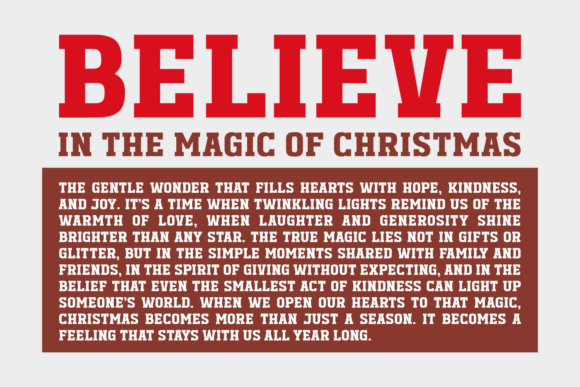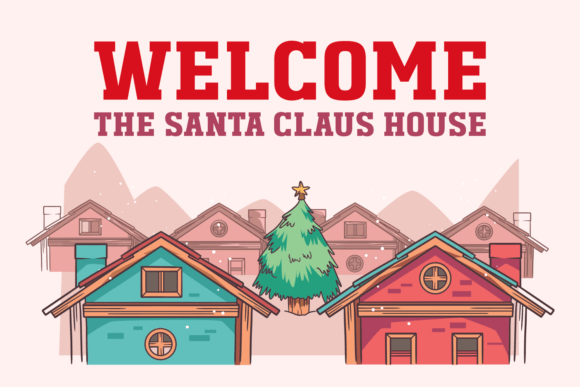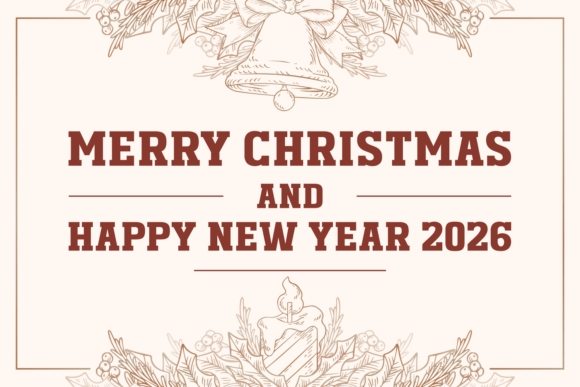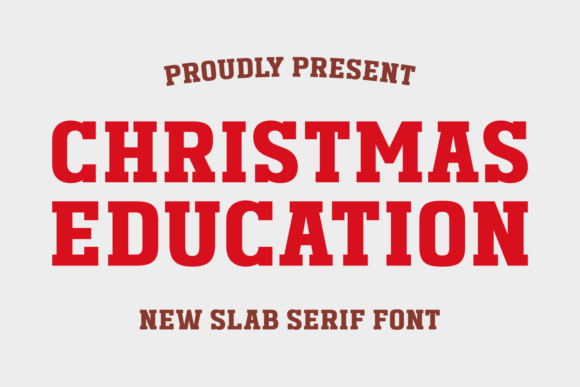
Introducing Christmas Education Font: The Perfect Blend of Festive Charm and Academic Strength
Are you looking for a font that captures the essence of Christmas while exuding academic excellence? Look no further than the Christmas Education font, a bold slab serif font that seamlessly combines festive charm with academic strength. This unique font is designed to bring cheer and attention-grabbing appeal to your designs while maintaining structure and clarity.
Key Features of Christmas Education Font
Christmas Education font boasts thick letterforms and confident serifs, making it an ideal choice for creating cheerful and attention-grabbing designs. Its bold geometry adds a vintage school vibe, enhanced by its holiday-inspired energy. The font’s warm and nostalgic feel makes it perfect for seasonal or educational projects.
The Christmas Education font features:
- Thick letterforms: Giving the font a bold and confident appearance
- Confident serifs: Adding a touch of sophistication and elegance
- Bold geometry: Providing a vintage school vibe and holiday-inspired energy
- Warm and nostalgic feel: Evoking a sense of tradition and learning spirit
Use Cases for Christmas Education Font
Christmas Education font is incredibly versatile and can be used for a variety of design projects, including:
- Holiday posters: Create eye-catching and festive posters for Christmas events or promotions
- School projects: Add a touch of holiday cheer to school assignments, presentations, or newsletters
- Event signage: Use the font to create bold and attention-grabbing signs for Christmas events or sales
- Packaging and branding: Add a festive touch to product packaging or branding materials while maintaining a professional aesthetic
Why Choose Christmas Education Font?
Christmas Education font offers the perfect blend of festive charm and academic strength, making it an excellent choice for designers and crafters. Here are some reasons why you should choose this font:
- Unique blend of festive and academic: Stands out from traditional fonts and adds a touch of holiday cheer to designs
- Versatile: Suitable for both fun and professional designs, making it perfect for a wide range of projects
- Attention-grabbing: Thick letterforms and confident serifs make it perfect for creating bold and eye-catching designs
- Nostalgic feel: Evokes a sense of tradition and learning spirit, making it perfect for educational projects
Tips for Using Christmas Education Font
Here are some tips for using Christmas Education font effectively:
- Pair with complementary fonts: Use Christmas Education font as a headline font and pair it with a complementary font for body text
- Experiment with colors: Try out different color schemes to find the perfect combination that matches your design’s tone and style
- Use for emphasis: Use Christmas Education font to draw attention to specific elements in your design, such as headings or calls-to-action
| Font Name | Christmas Education Font |
| Author | Eightde |
Christmas Education font is a unique and versatile font that combines festive charm with academic strength. Its bold geometry, thick letterforms, and confident serifs make it perfect for creating attention-grabbing designs that are both fun and professional. Whether you’re a designer or crafter, this font is sure to bring a touch of holiday cheer and learning spirit to your projects.